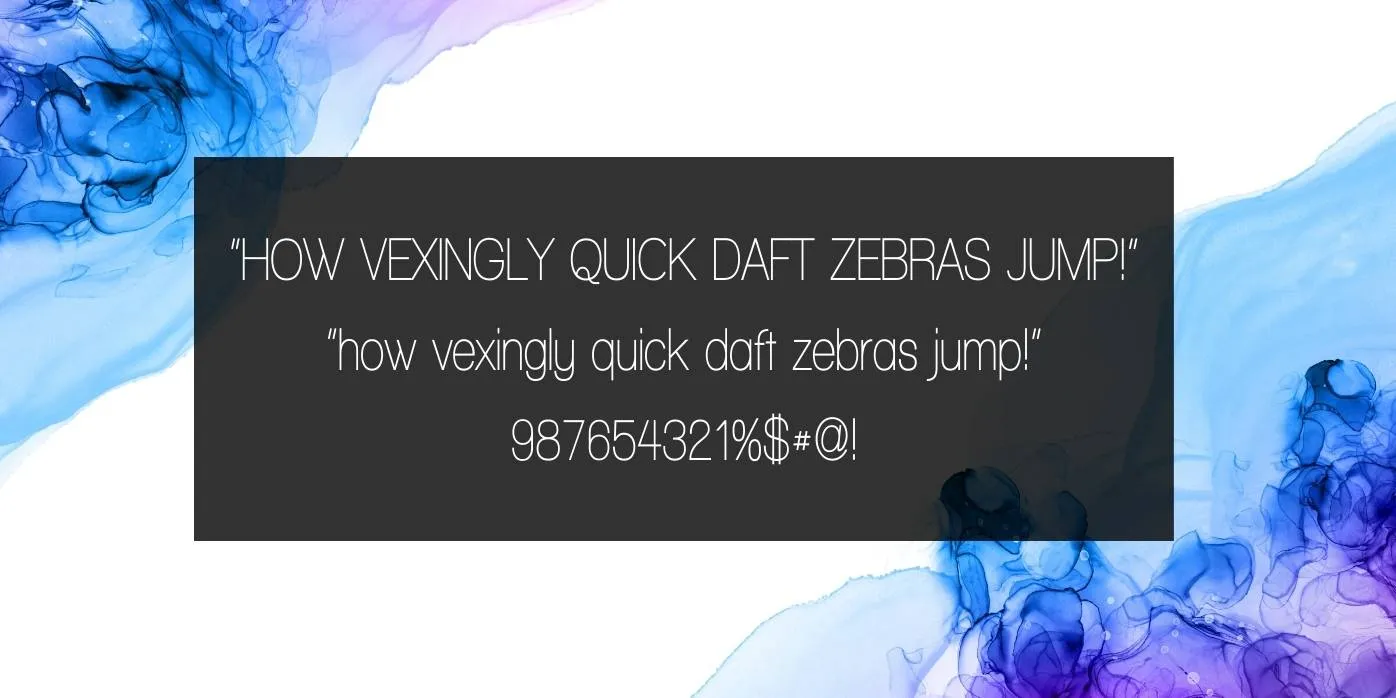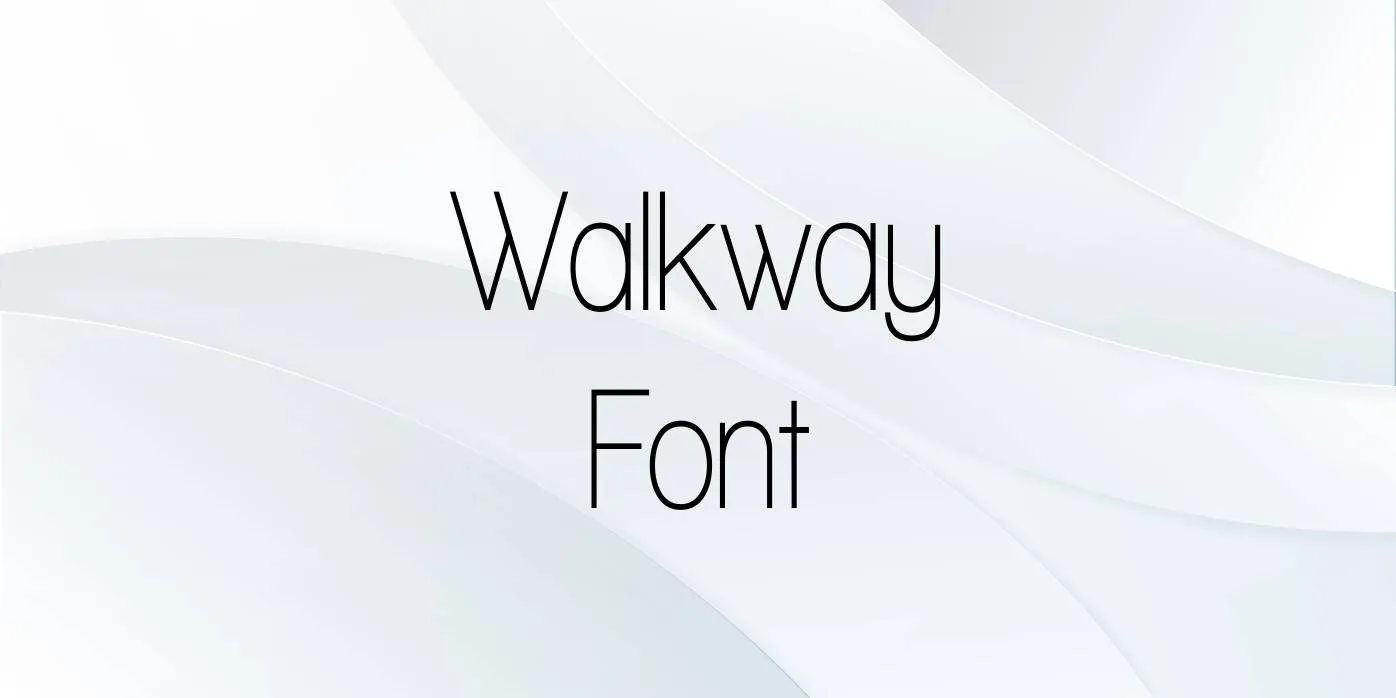
Walkway Font
Today, we present a modern typeface known as Walkway Font. This family was designed by GemFonts and belongs to the sans serif family. It is a contemporary font with four styles. This tremendous font was designed to be used in large sizes.
It has a very high x-height, wide apertures, and large counters. The family includes four styles: Regular, Bold, Italic, and Bold Italic. The regular style is the workhorse of the family and is best used for body copy. The bold style is perfect for headlines and other display uses.
You can use a credit card font that has the same style and characters as this one. The copy and paste function of this typeface is perfect for various designs. The italic style adds a touch of elegance to your text, while the bold italic style is perfect for headlines and other display uses. If you are looking for a modern sans serif typeface that can be used in large sizes, then Walkway Font is the perfect choice for your projects.